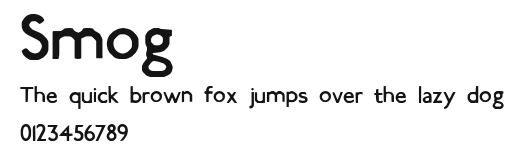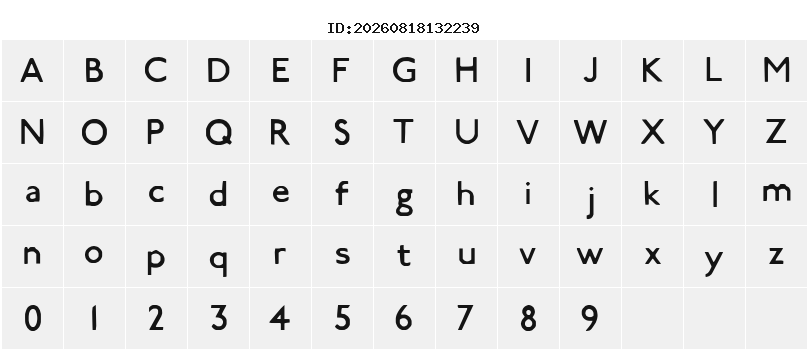
Smog Preview
• Font Name: Smog
• Full Font Name: Smog
• PostScript Name: Smog
• Character Count: 64
About Smog.ttf
Smog.ttf is a modern, elegant sans-serif font designed for ultimate readability and visual harmony. Perfect for branding, headlines, web design, and print materials.